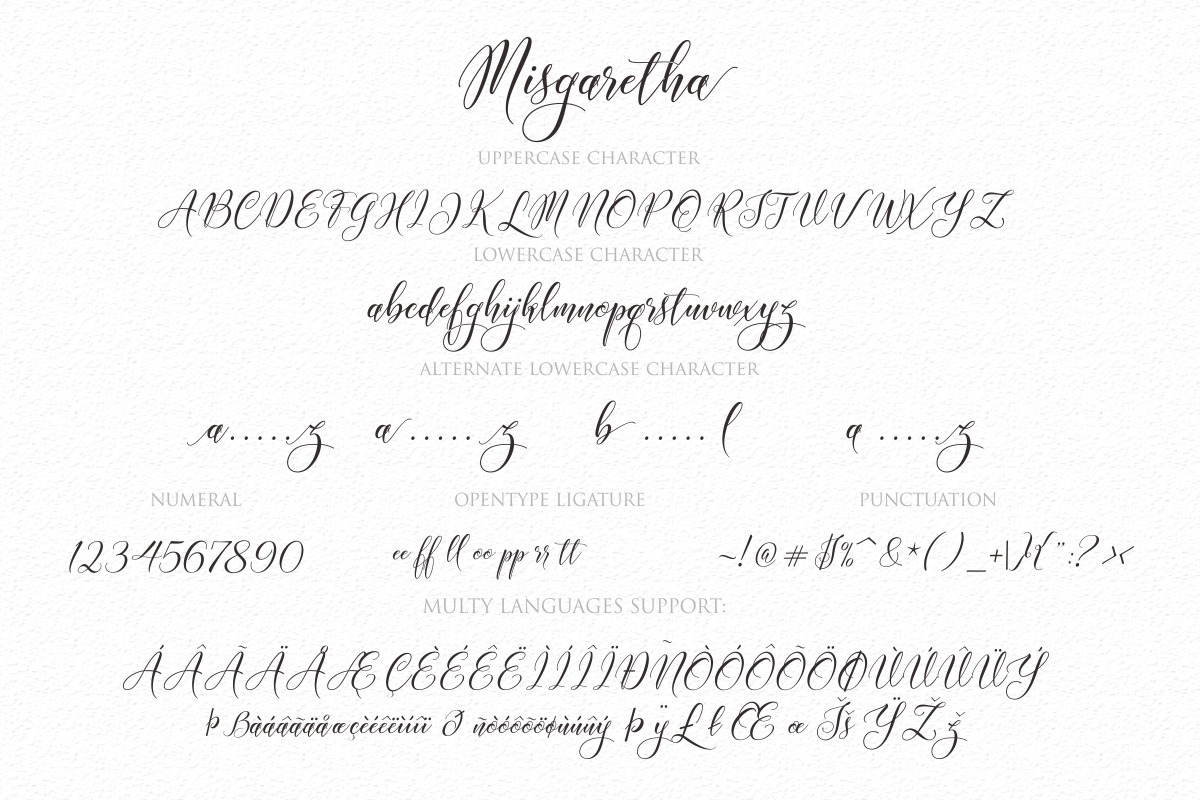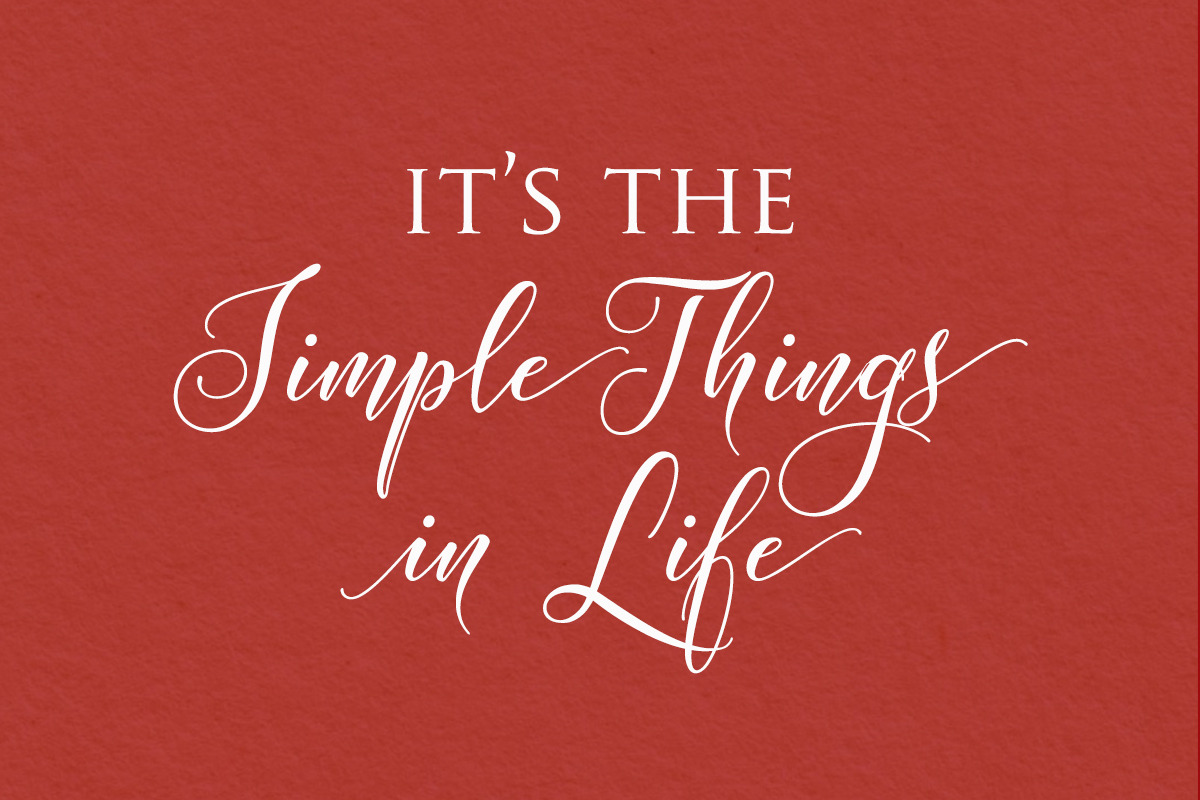
Misgaretha
Misgaretha Font - Lovely and Romantic
The font contains beautiful smooth and elegant letters and is great for creating cards such as wedding invitations and birthday cards but also can be used to create beautiful signs and decorate various items.
The font has a modern calligraphy style and features beautiful swashes. It is easy to read and fun to work with. There is no doubt that you will get professional results with this font and you will be able to amaze your customers.The Misgaretha Font has given PUA unicode (specially coded fonts), with tons of alternate characters. The pack can be accessed in full by any crafter or designer, without the requirement for extra design software, COMPATIBLE WITH SILHOUETTE & CRICUT DESIGN SPACE